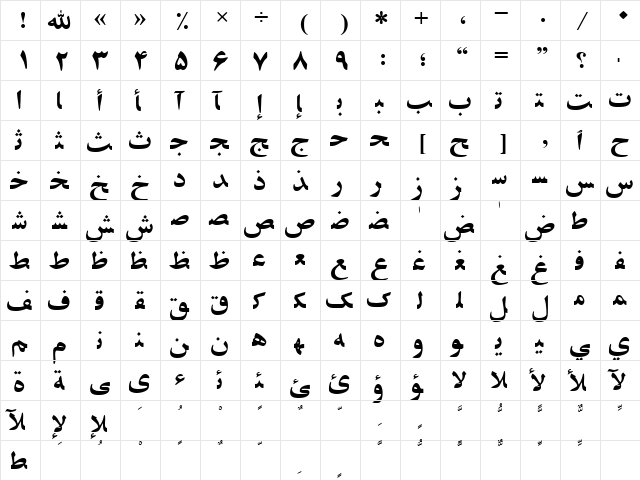
Khorshid-e Iran Regular
Design Context for Khorshid-e Iran Typeface
Khorshid-e Iran takes a measured approach to typography — its balanced proportions and neutral character make it a reliable workhorse for both digital and print work.